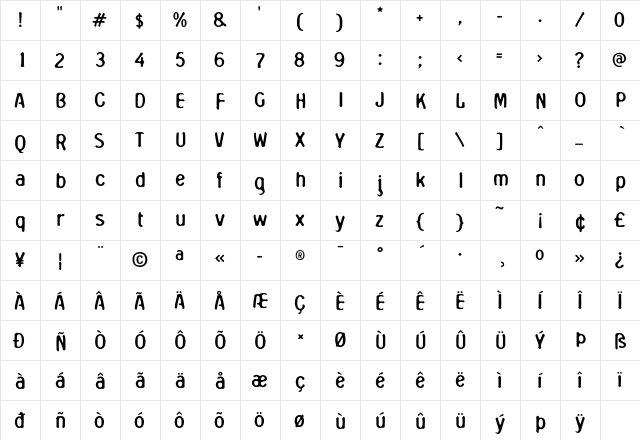
Oculus-BGauge Regular
Design Context for Oculus-BGauge Typeface
Oculus-BGauge offers clean, dependable letterforms without strong stylistic allegiance, making it a practical choice for designers who need flexibility.
Pro Tip: Use Oculus-BGauge in both headline and body roles to test its range before committing to a single application.